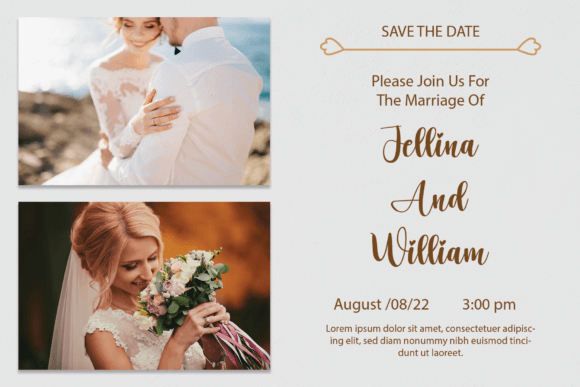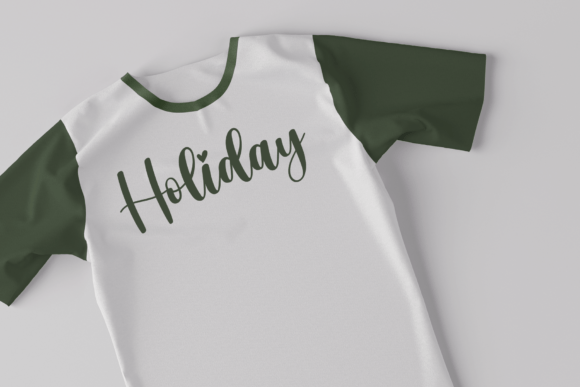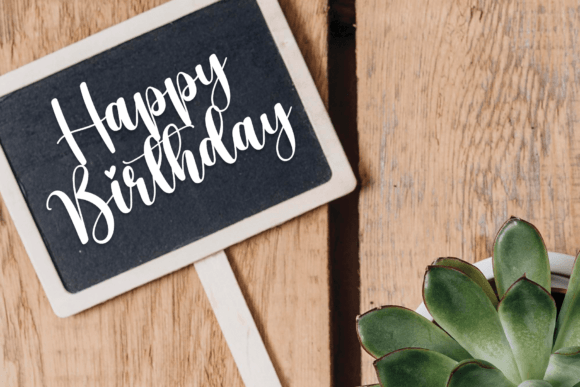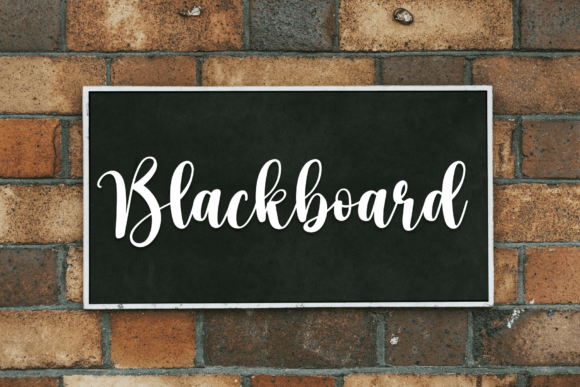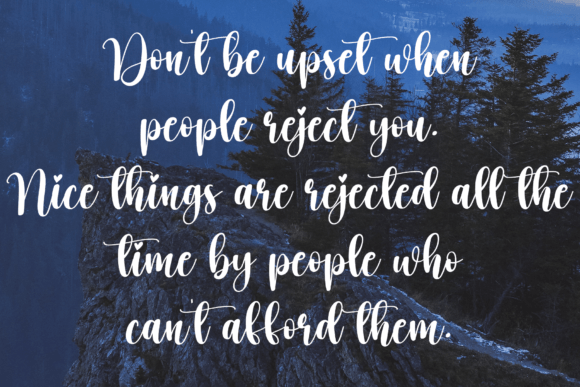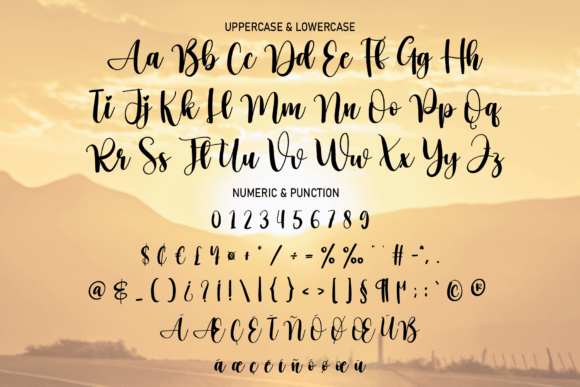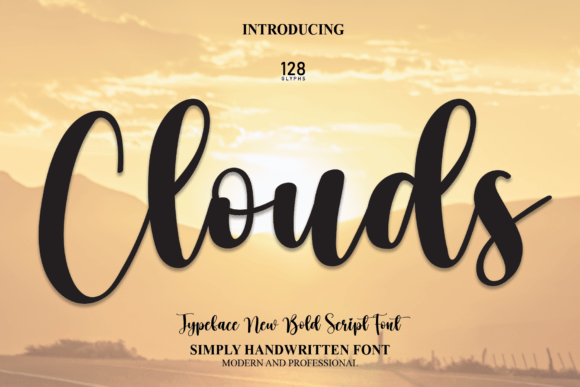
Discover the Magic of Clouds Font: Elevate Your Designs with Elegance
Are you a designer, crafty DIY enthusiast, or social media influencer looking for a font that can add a touch of magic to your creative projects? Look no further than Clouds Font, a beautiful script font that combines elegance with a whimsical flair. In this article, we’ll dive into the world of Clouds Font, exploring its features, uses, and benefits, and show you how it can transform your designs into true works of art.
What is Clouds Font?
Clouds Font is a carefully crafted script font that boasts a unique blend of sophistication and playfulness. With its flowing lines, delicate curves, and airy feel, this font is perfect for adding a touch of elegance to any design project. Whether you’re working on a logo, social media graphics, or a DIY craft, Clouds Font is sure to impress.
Features of Clouds Font
• Magical script font: Clouds Font is a script font that is designed to add a touch of magic to your designs. Its unique letterforms and flowing lines make it perfect for creating eye-catching headlines, titles, and quotes.
• Elegant and refined: With its delicate curves and sophisticated feel, Clouds Font is ideal for designs that require a touch of elegance. Whether you’re working on a luxury brand or a high-end product, this font is sure to impress.
• Versatile: Clouds Font is a versatile font that can be used for a wide range of design projects, from social media graphics to logos, and from DIY crafts to professional branding.
Uses of Clouds Font
Clouds Font is a versatile font that can be used for a wide range of design projects, including:
• Instagram graphics: Add a touch of elegance to your Instagram feed with Clouds Font. Use it to create eye-catching headlines, quotes, and captions that will make your followers swoon.
• DIY projects: Clouds Font is perfect for DIY enthusiasts who love to create handmade crafts, such as cards, gift tags, and scrapbook pages.
• Calligraphy scripts: With its flowing lines and delicate curves, Clouds Font is a great choice for calligraphy scripts. Use it to add a touch of elegance to your hand-lettered projects.
• Branding and logos: Clouds Font is a great choice for branding and logos, particularly for luxury brands or high-end products that require a touch of sophistication.
Benefits of Using Clouds Font
So why choose Clouds Font for your design projects? Here are just a few benefits of using this beautiful script font:
• Adds elegance and sophistication: Clouds Font adds a touch of elegance and sophistication to any design project, making it perfect for luxury brands, high-end products, and special occasions.
• Versatile and flexible: Clouds Font can be used for a wide range of design projects, from social media graphics to logos, and from DIY crafts to professional branding.
• Unique and eye-catching: Clouds Font is a unique and eye-catching font that will make your designs stand out from the crowd.
In conclusion, Clouds Font is a magical script font that can add a touch of elegance and sophistication to any design project. With its flowing lines, delicate curves, and airy feel, this font is perfect for designers, crafters, and DIY enthusiasts who want to create eye-catching and unique designs. Whether you’re working on a logo, social media graphics, or a DIY craft, Clouds Font is sure to impress. So why wait? Download Clouds Font today and start creating your own magical designs!